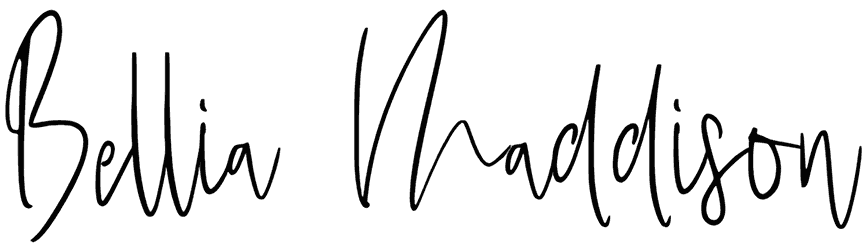
Bellia Maddison Font
The great flourishes of Bellia Maddison’s letters have made many designers ignore its illegibility and use this handwritten font as a decorative tool.
The uncoordinated appearance in this script font is what you need to add a sense of urgency or personal excitement to your designs and stimulate the audience’s emotions to do the work you want. Using this handwritten font, you can implement a bit of your culture in a poster, letter, or any other personal project.